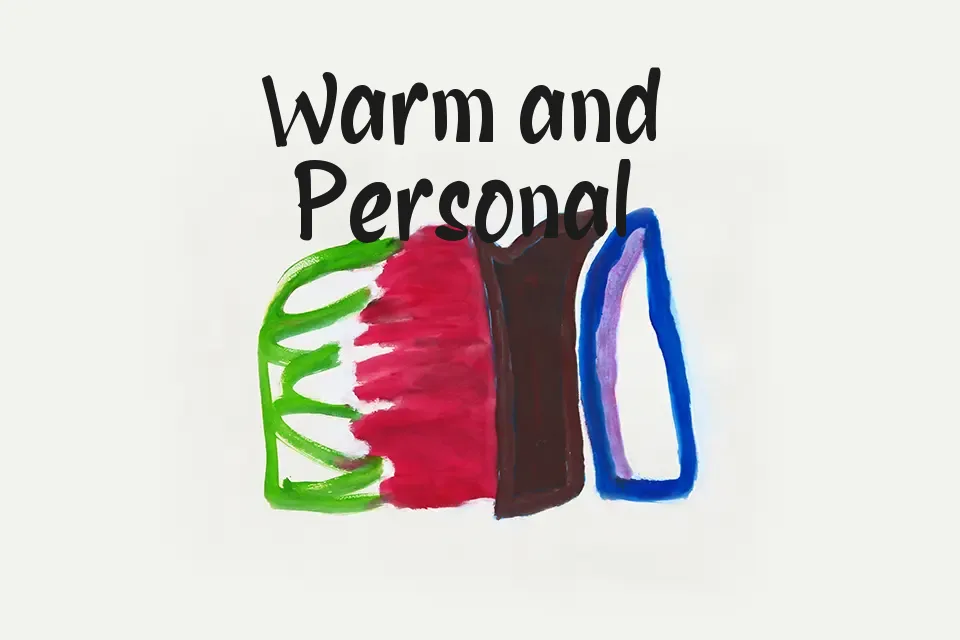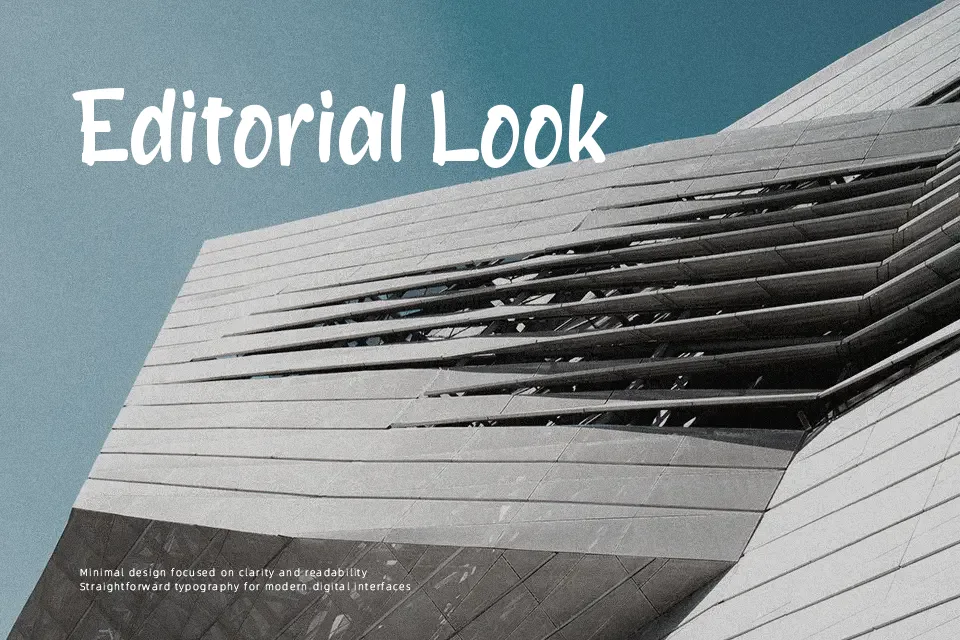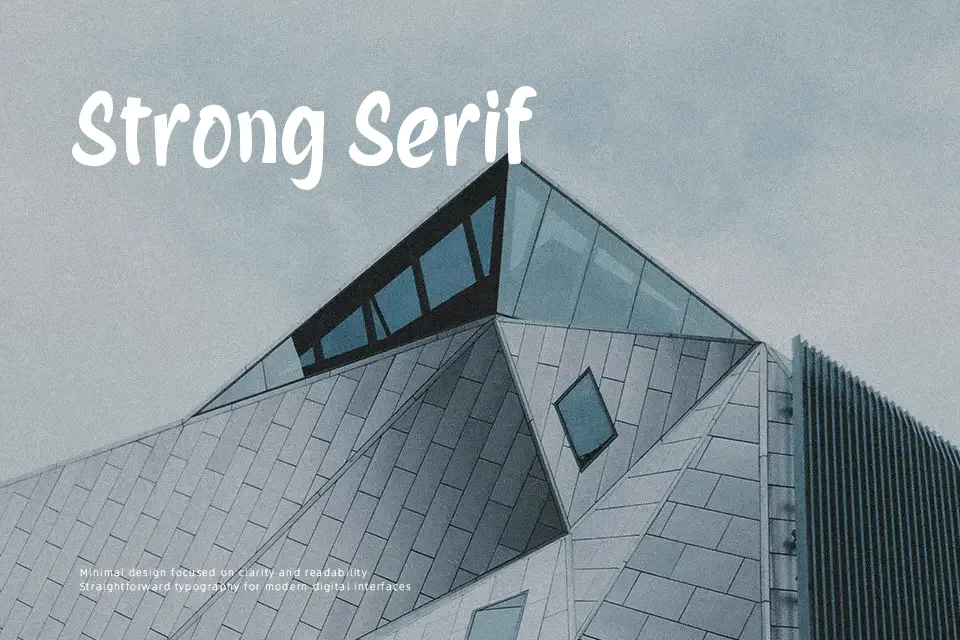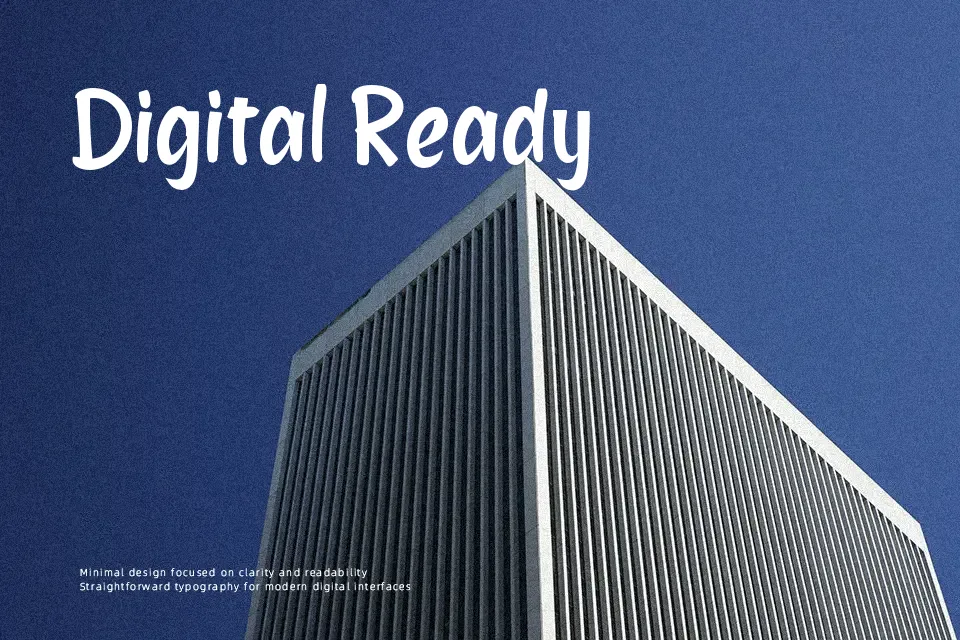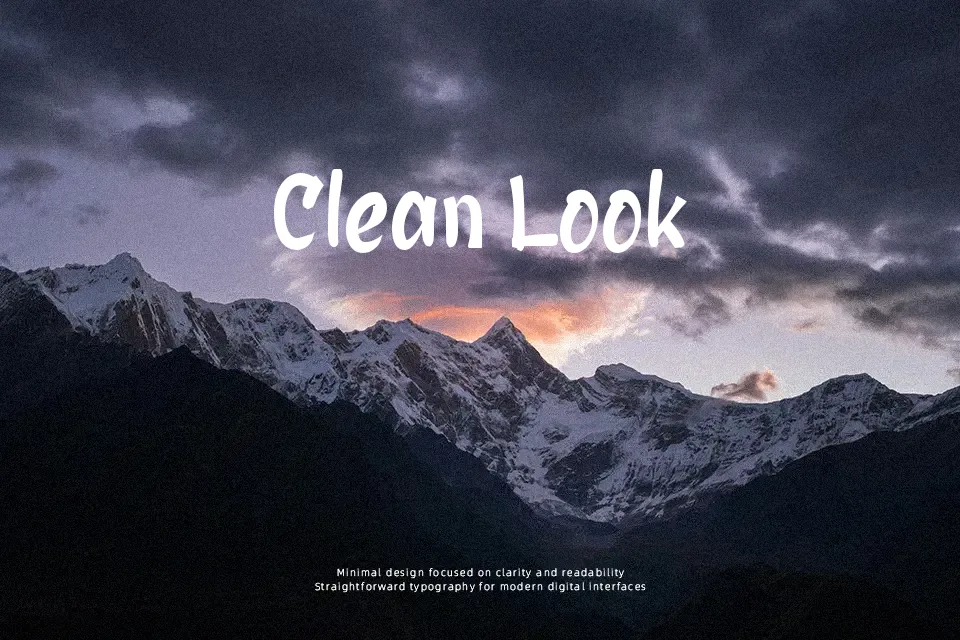
B Bagian Font
The strokes curve with a soft, balloon-like quality that gives B Bagian an immediately friendly presence. Each letter sits wide with generous spacing, creating an open and approachable rhythm across words. This comic-inspired display font leans heavily toward casual, youthful communication—it performs well on merchandise for kids, game UI elements, or short promotional headlines where personality matters more than formality. However, the decorative structure becomes visually tiring in paragraphs longer than a few lines, and the informal tone doesn’t suit professional contexts like corporate presentations or academic materials. The letterforms maintain clarity at larger sizes but lose definition when scaled down for body text or mobile interfaces. B Bagian excels when brevity and charm are the goal, but struggles when readability over extended reading is required.
Best For:- children’s book titles and covers
– cartoon character branding
– casual social media quote graphics
– youth apparel and sticker designs
Not Ideal For:- body text or long paragraphs
– formal business documentation
– small-sized mobile UI text
– academic or professional reports
Perfect for branding, kids, and logo, with a cute and comic style.